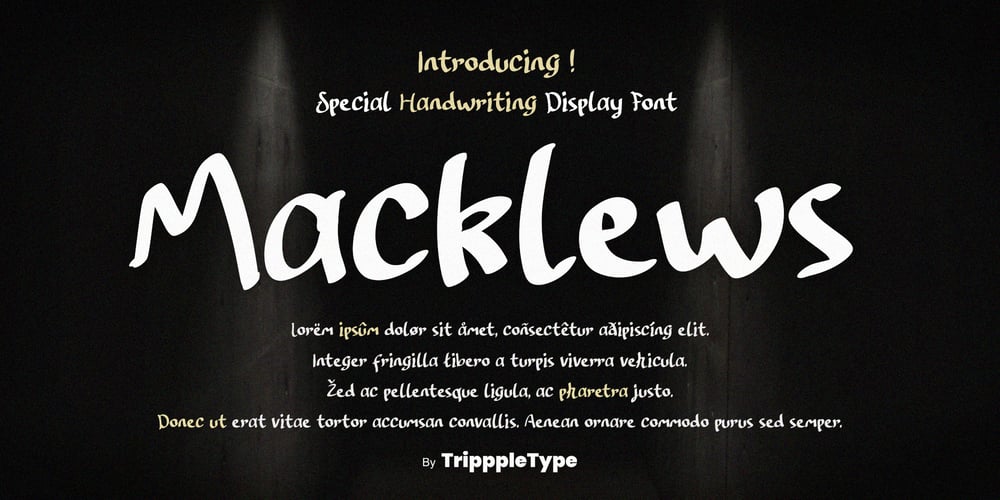
Macklews Handwritten Font Family was designed by Kang Nur and published by TripppleType. Macklews Handwritten contains 1 styles and family package options. Macklews is the perfect blend of refined elegance and casual handwritten charm. With its sleek lines and balanced curves, this font brings a touch of sophistication to your posts, without losing that personal, hand-drawn feel. Ideal for daily story posts or engaging visual content, Macklews speaks to a classy yet creative crowd looking for something special.Turn heads with the sleek style of Macklews. Download today to give your projects an artistic flair that stands out in the most elegant way.